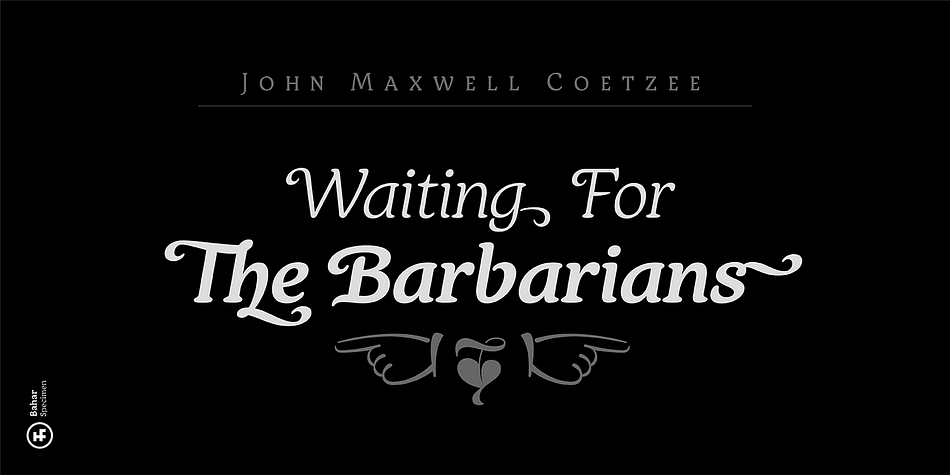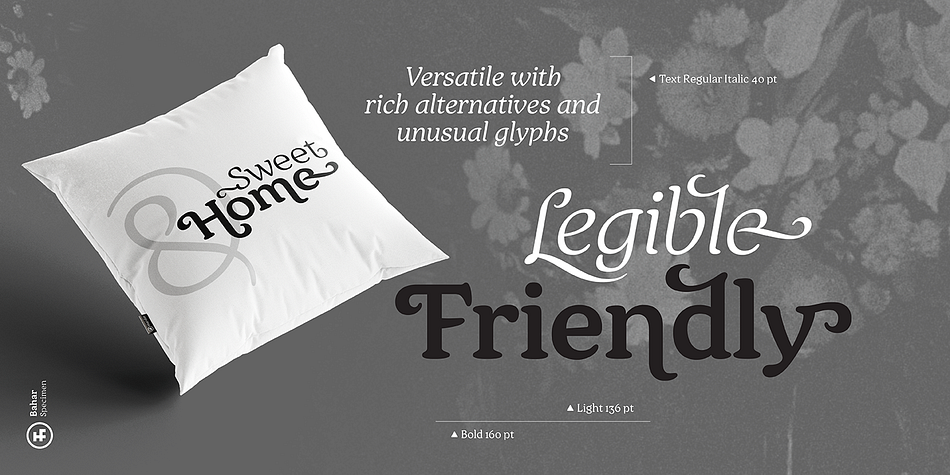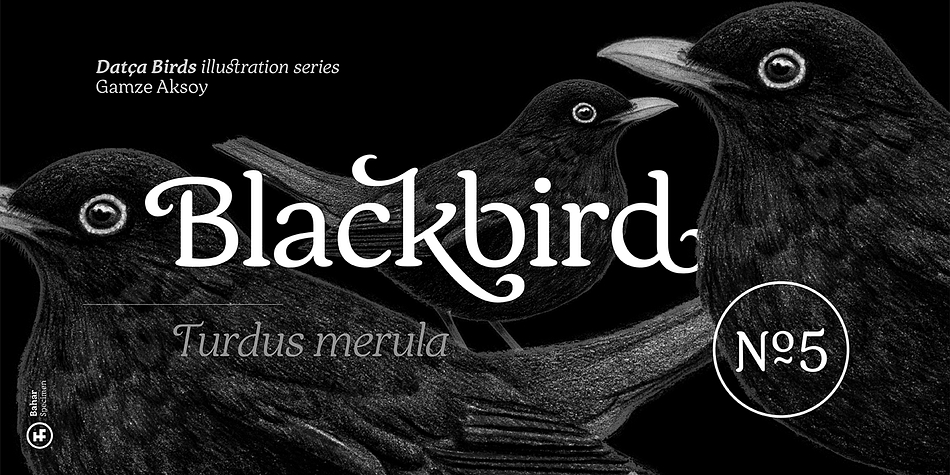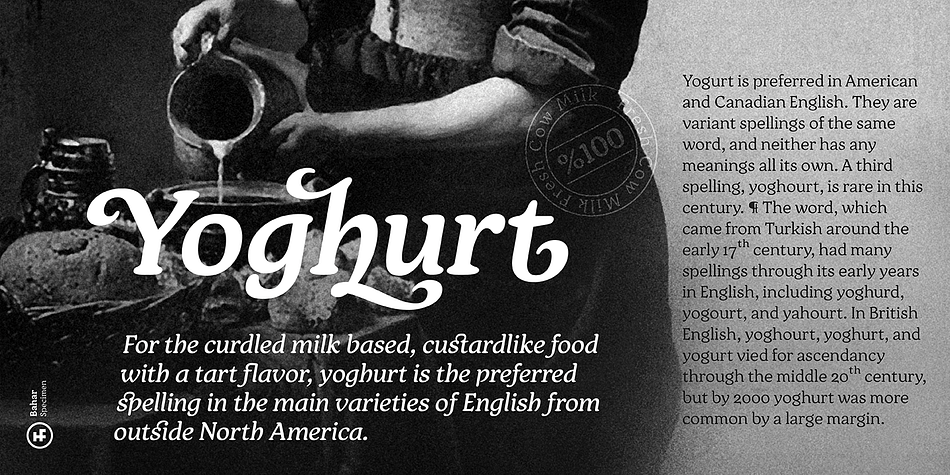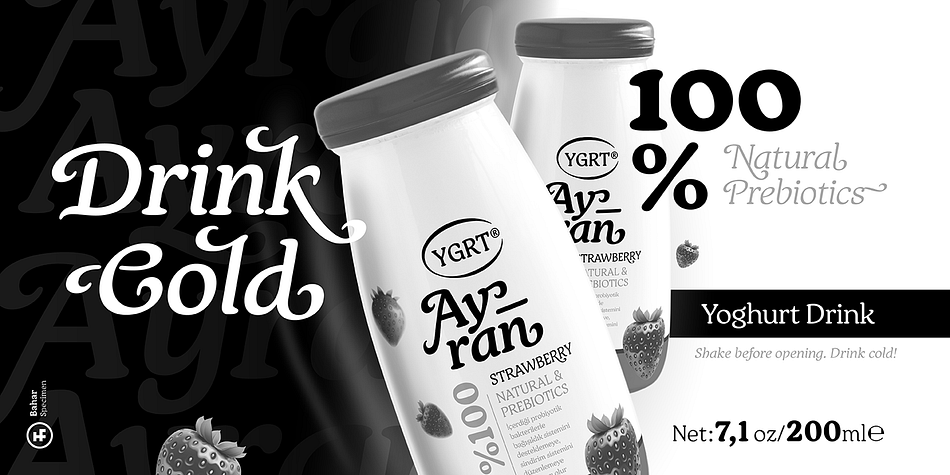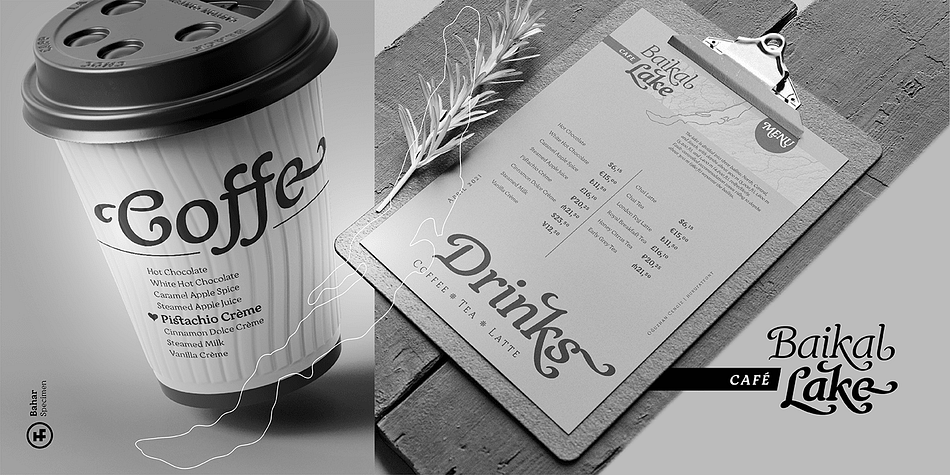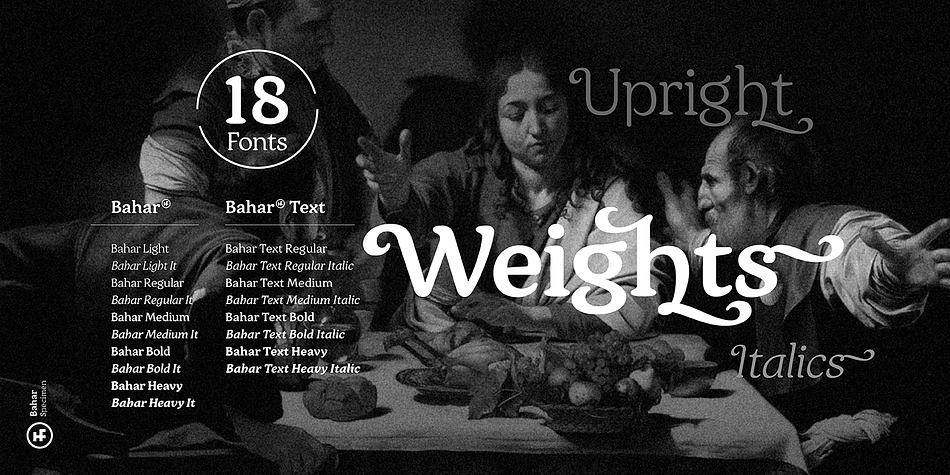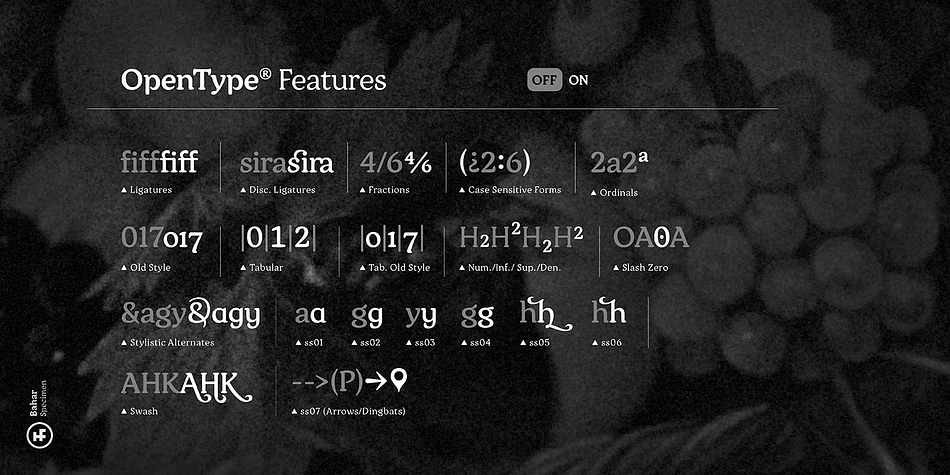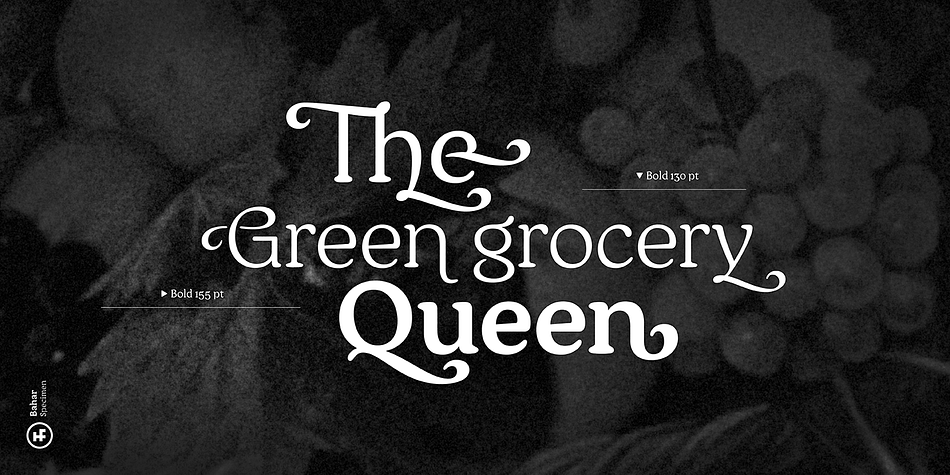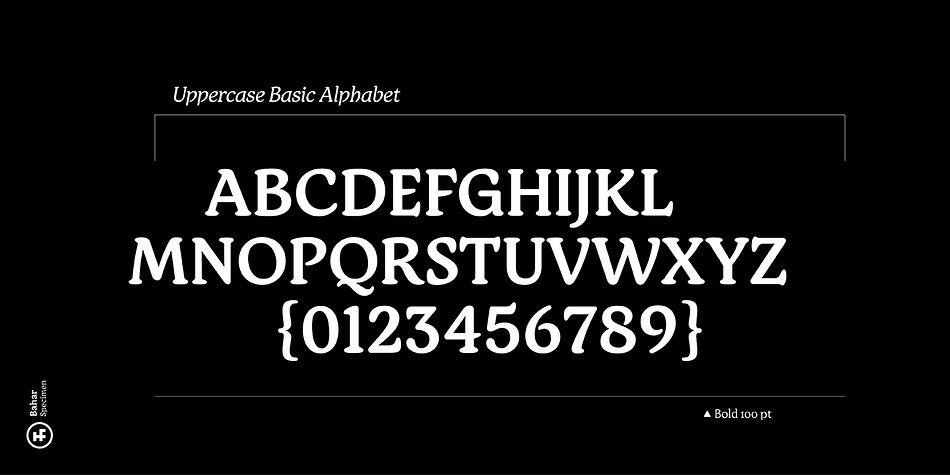
Designed by Oğuzhan Cengiz, Bahar is a retro and serif font family. This typeface has eighteen styles and was published by Hurufatfont Type Foundry.
Bahar was inspired by the playful-energetic nature of Cooper Black from Souvenir’s soft but confident stance and was born from the idea of creating a new structure by blending this structure with calligraphic strokes.
The title and body are presented in two sets for perfect results.
Bahar has a wide variety of character alternatives to create the perfect and fun title. It offers calligraphic flavors with swashes, start-finish forms, and fun ligatures.
Bahar Text is prepared for Body texts and offers a good reading experience. Does not include swash and style alternatives.
Bahar consists of five weights, Bahar Text four, a total of nine weights, and 18 styles with true italics.
For each weight, there is a complete set of open type features including ligatures, small caps, old-style and table numbers, and positional numbers.